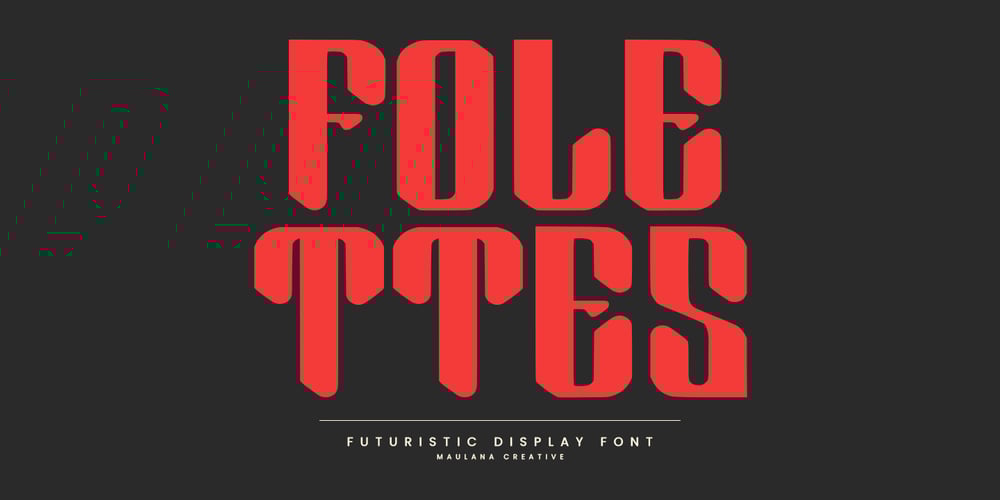
MC Folettes
MC Folettes font
MC Folettes Font Family was designed by Gilang Maulana and published by Maulana Creative. MC Folettes contains 1 styles and family package options. Folettes is a Futuristic Display font. Regular fill, fun character with a bit of alternates. To give you an extra creative work. Folettes font support multilingual language. This font is good for logo design, Social media, Movie Titles, Books Titles, a short text even a long text letter and good for your secondary text font with script or serif. Make a stunning work with Folettes font.Cheers,Maulana Creative